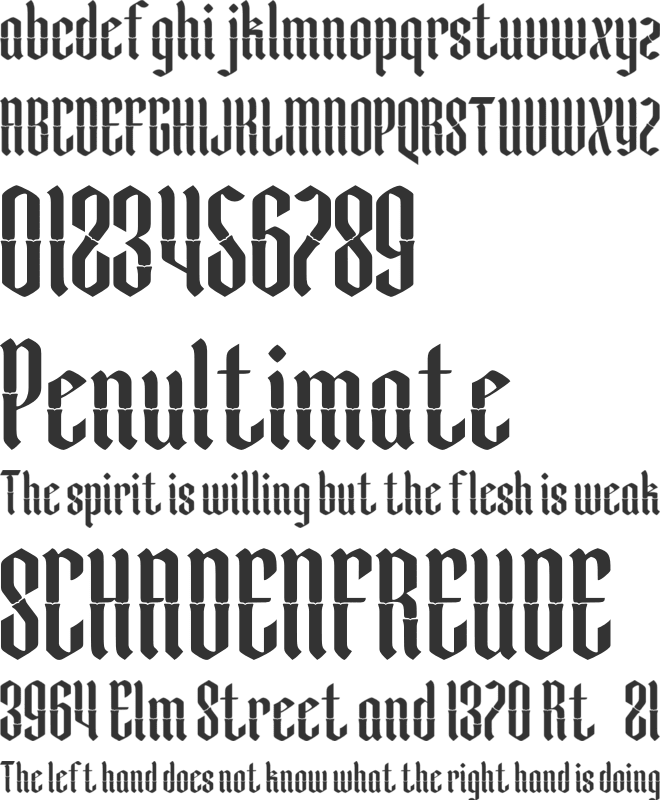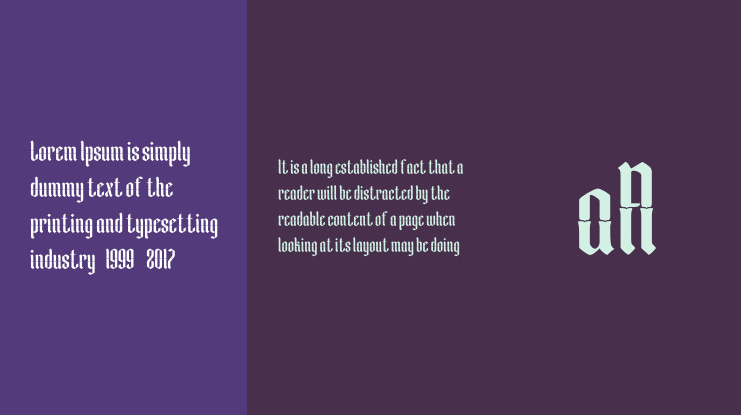
Ravencrest Font
Ravencrest is a bold Gothic Blackletter font inspired by medieval typography, Old English lettering, and dark fantasy aesthetics. Designed with sharp angles, dramatic strokes, and authentic blackletter character, this typeface captures the spirit of ancient kingdoms, heraldic emblems, gothic architecture, and heavy metal culture.
Perfect for logos, branding, album covers, book titles, posters, gaming projects, apparel design, tattoo artwork, packaging, and fantasy-themed creations. Ravencrest combines traditional Gothic typography with modern readability, making it ideal for both vintage and contemporary designs.
Ravencrest was created by ReyreyBlueStd